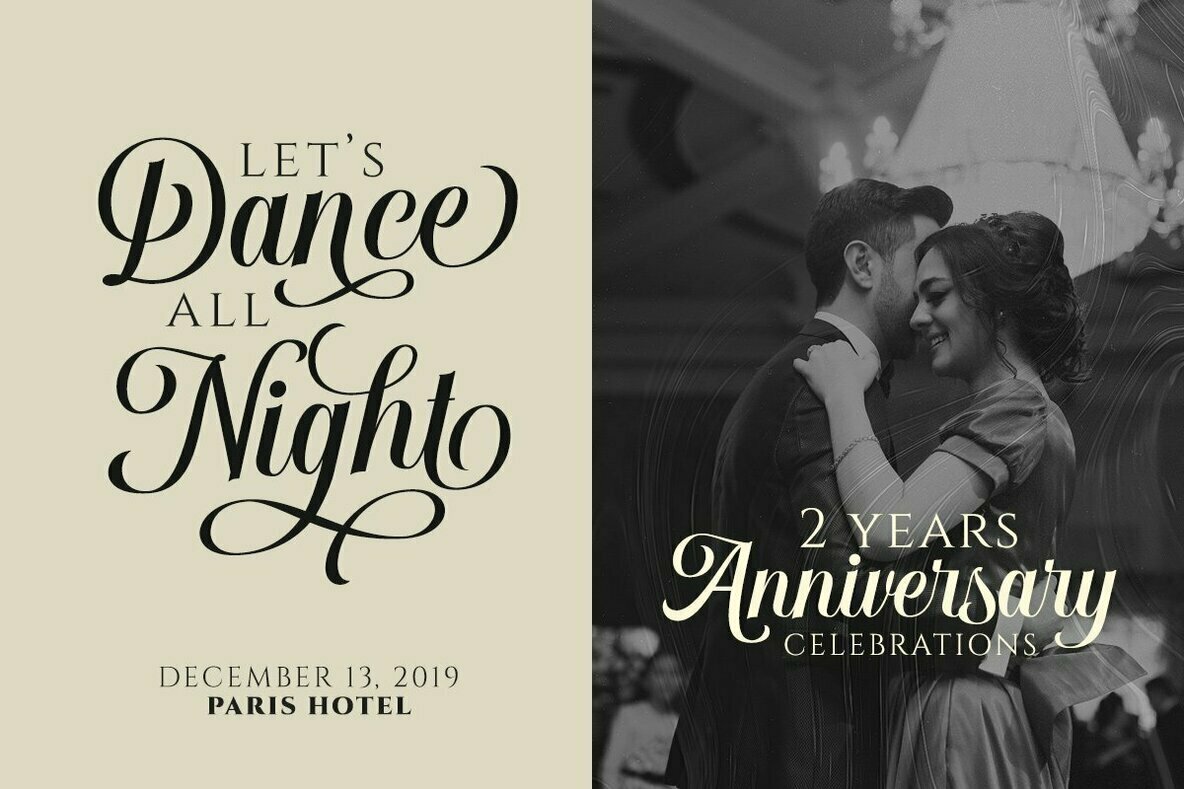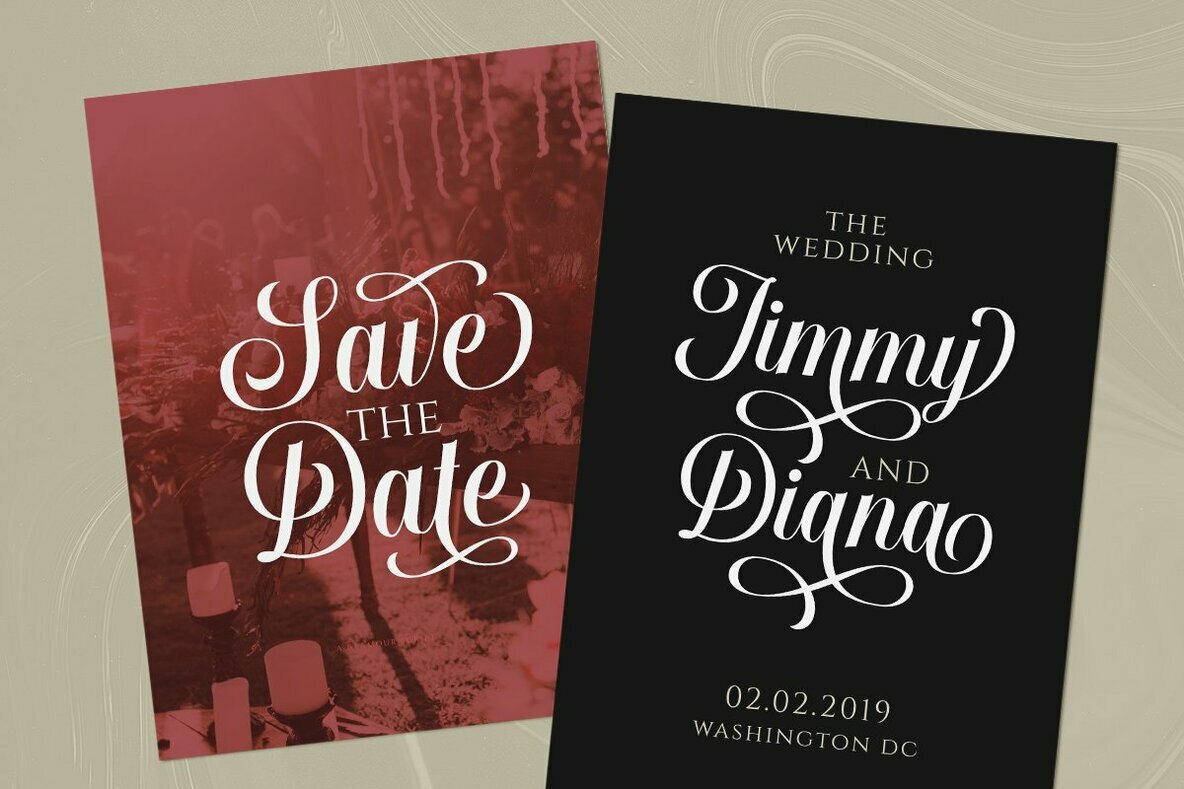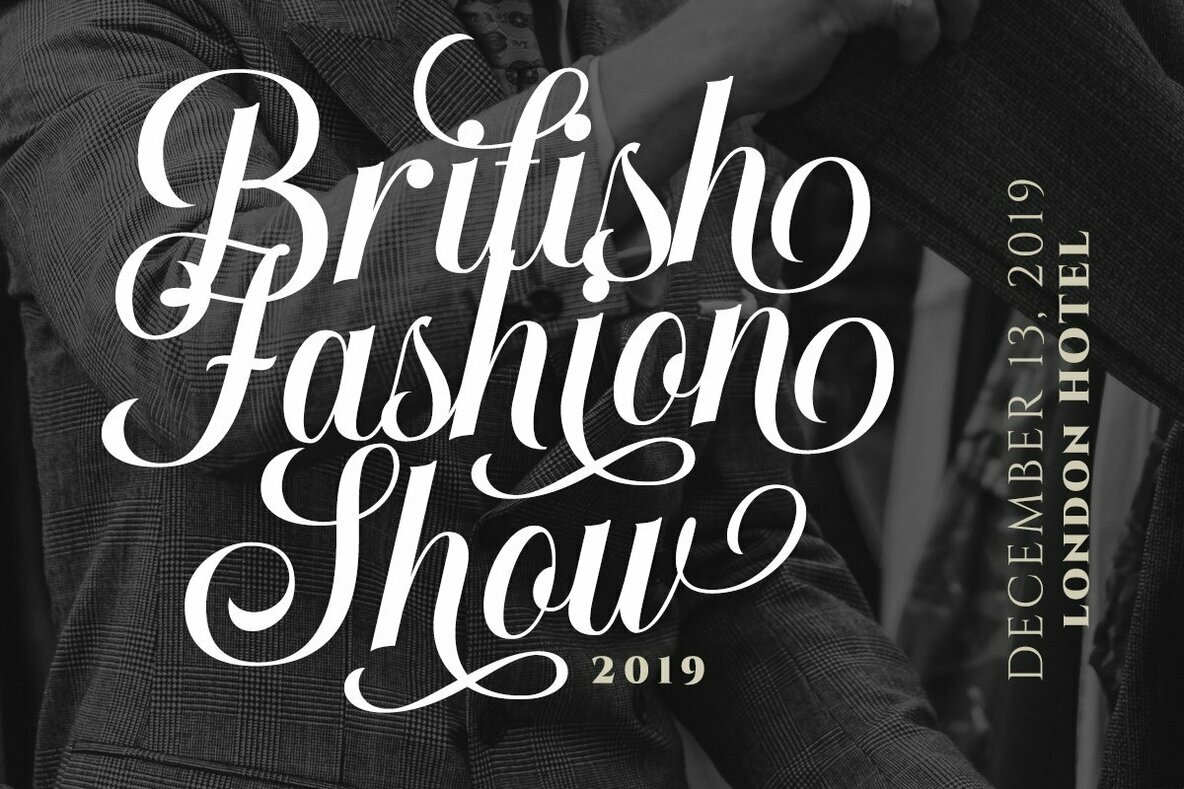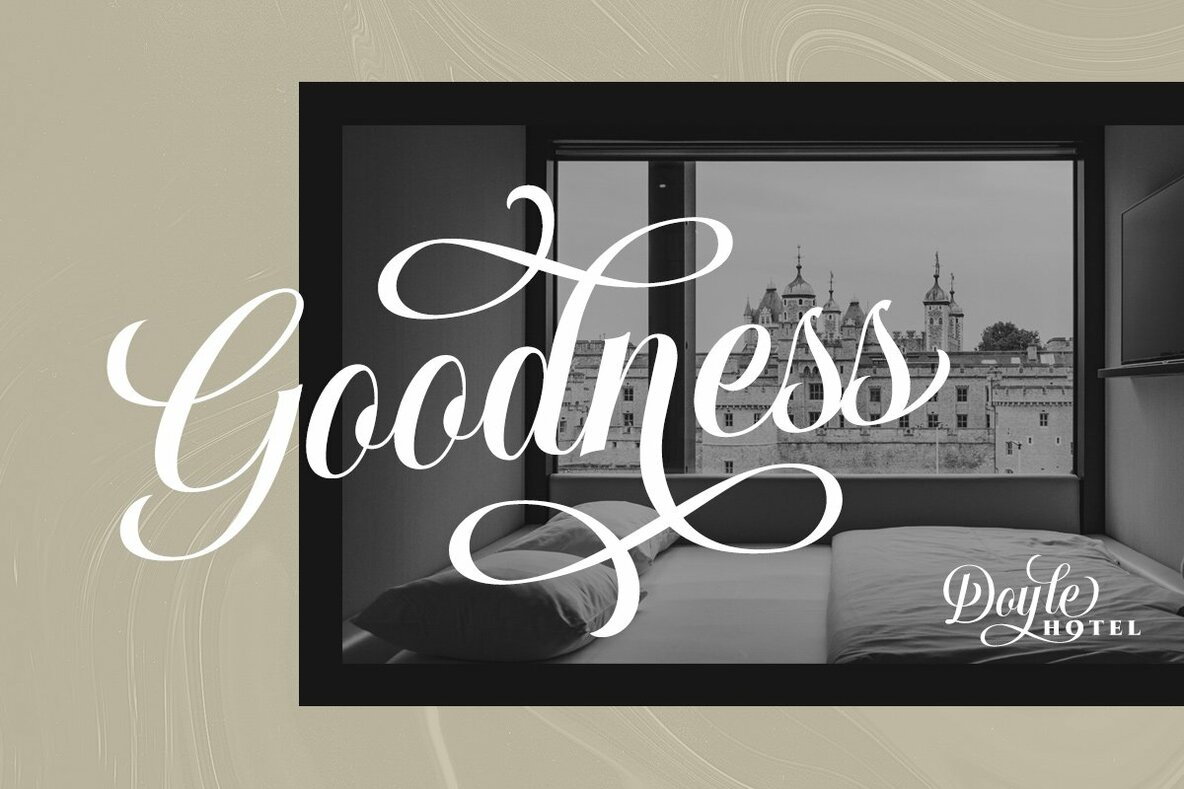
Hougbon Script Font
Hougbon Script
Designed by Letterhend Studio, Hougbon Script exudes a feminine and smooth charm, ideal for formal applications. This glamorous typeface is crafted with care, incorporating up to eight stylistic sets for each character. Hougbon is the perfect choice for a myriad of uses, including elegant invitations, sophisticated labels, and striking logos. Its versatility extends to magazines, books, greeting cards, and wedding invitations, harmonizing effortlessly with fashion and makeup branding. Features:Hougbon Script: Feminine Elegance in Typography
With its innate elegance and comprehensive features, Hougbon Script caters to designers seeking a polished and versatile font for diverse creative projects.